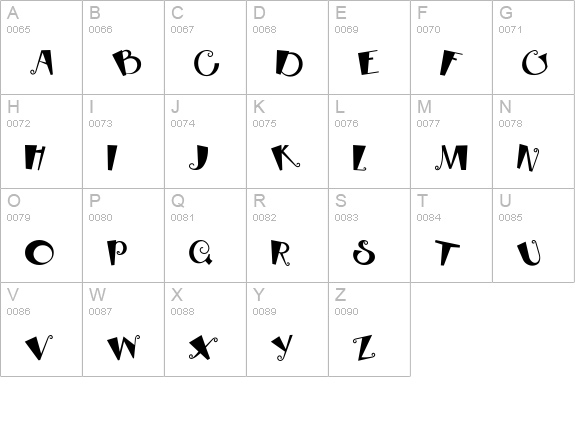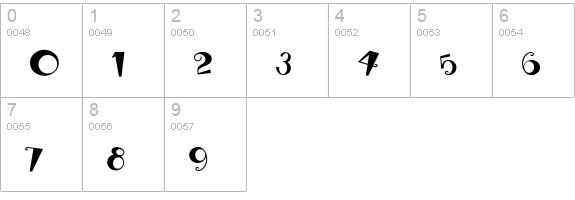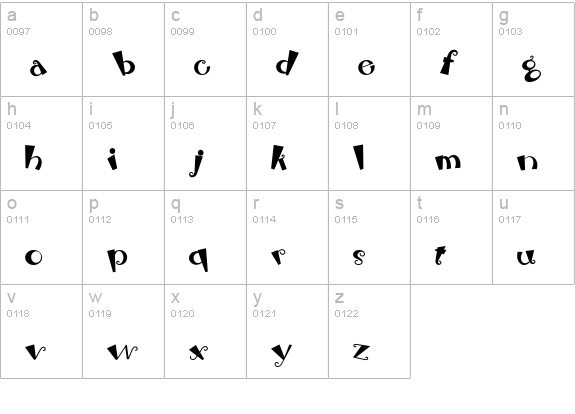
RhubarbPie Font Details
Introducing the delightful and whimsical RhubarbPie font, a captivating typeface that will add a touch of playfulness to your designs. With its charming curves and unique letterforms, RhubarbPie is the perfect choice for projects that require a dash of creativity and a sprinkle of fun. This versatile font is ideal for a wide range of designs, including children's books, greeting cards, logos, packaging, and more. Its gentle and inviting appearance makes it particularly suitable for projects aimed at capturing the attention of young audiences or those who appreciate a lighthearted and cheerful aesthetic. RhubarbPie offers a wide variety of glyphs and ligatures, allowing you to create a truly personalized and captivating look. Whether you're designing a poster for a whimsical event, crafting an eye-catching logo, or simply adding a playful touch to your social media posts, this font will undoubtedly leave a lasting impression. But the best part? RhubarbPie is absolutely free! That's right, you can download this delightful font at no cost from FontsMarket.com. With its freely available download, you can effortlessly bring a touch of joy and creativity to your design projects without breaking the bank. So why wait? Embrace the charm and uniqueness of RhubarbPie font and watch your designs come to life with a dash of whimsy. Download it today from FontsMarket.com and let your creativity flourish!